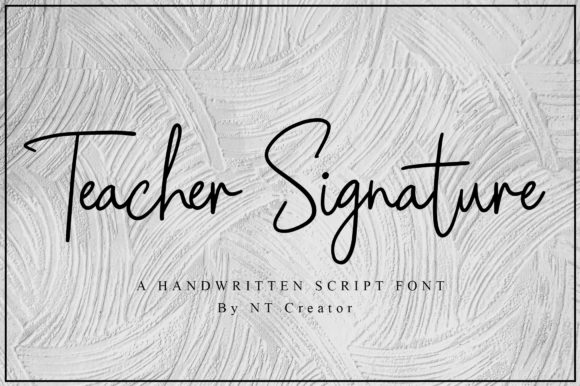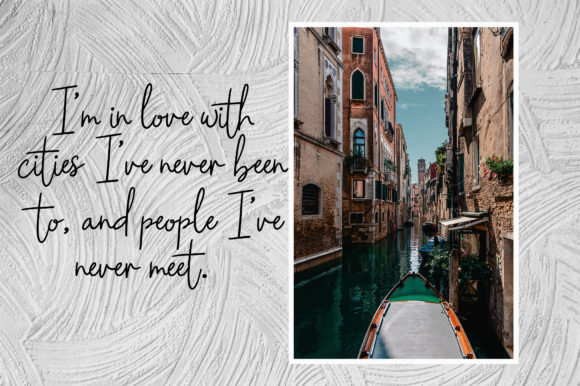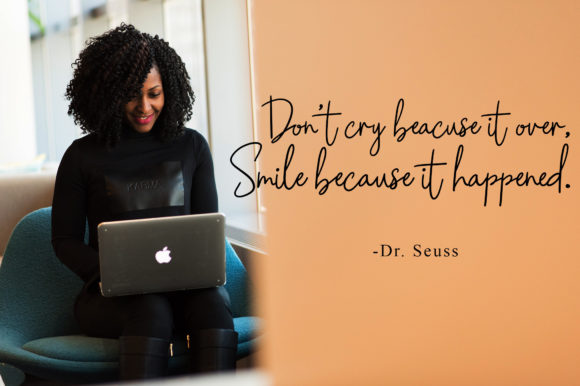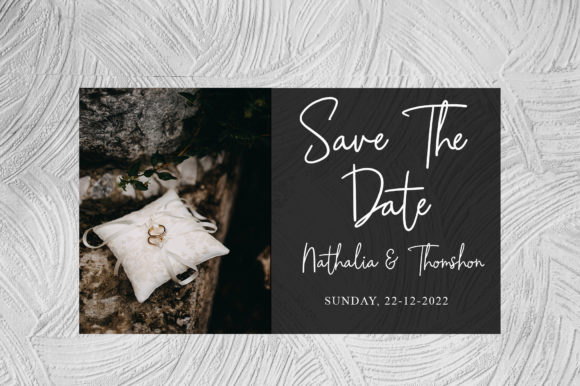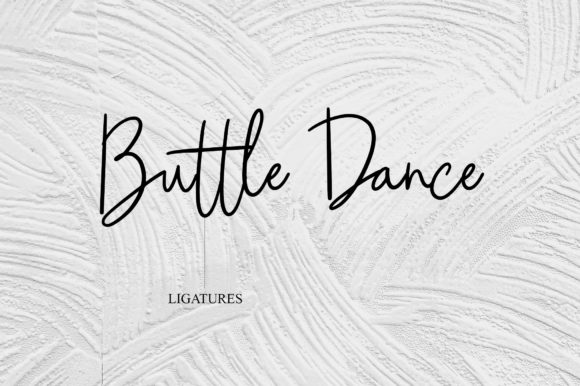
About Teacher Signature Font
Teacher Signature is a sweet, flowing and thin lettered script font. It can be used on a variety of design ideas. Fall in love with its incredibly versatile style and use it to create gorgeous wedding invitations, beautiful stationary art, eye-catching social media posts, and much more!